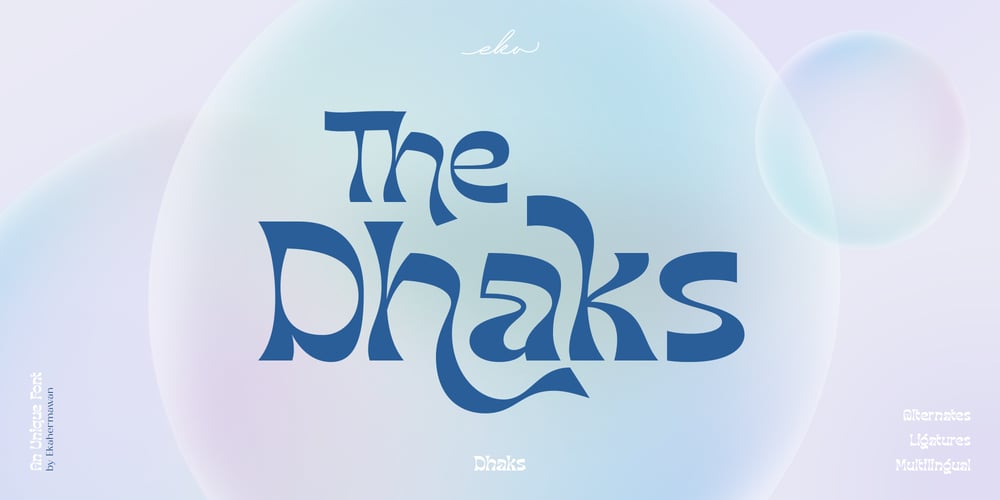
Dhaks
Dhaks font
Dhaks Font Family was designed by Putu Eka Hermawan and published by Ekahermawan. Dhaks contains 1 styles and family package options. Introducing our unique display font that we call “Dhaks”.Dhaks font has an unique shape on each character. Dhaks font comes with a bunch of alternates characters and ligatures characters that will give you a wide range to create a beautiful typographic design result for many different projects such as logo design, branding, poster, magazine, labels, merchandise, invitation, presentation, advertising, quotes and so much more!FEATURES:OpenType supportPlayfull to use (with ligatures and alternates options)Multilingual supportPUA EncodedIf you need support or more information about this item, please kindly contact me :ekahermawanputu@gmail.comThank you so muchI really hope you enjoy when using it!